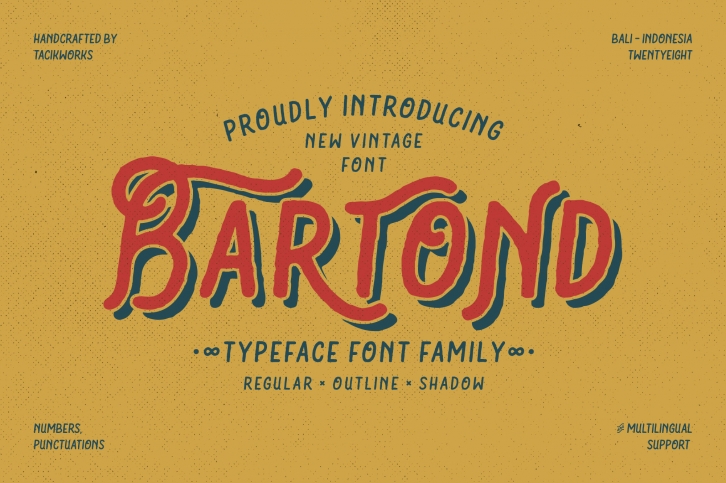
Bartond Typeface is a trendy and unique font with an authentic style. It was designed by TACIKWORKS and it's a great choice for creative people who need such a font. It was released on January 7, 2020 and the file size is 12.51 MB. Bartond Typeface will add an organic vibe to any design idea!